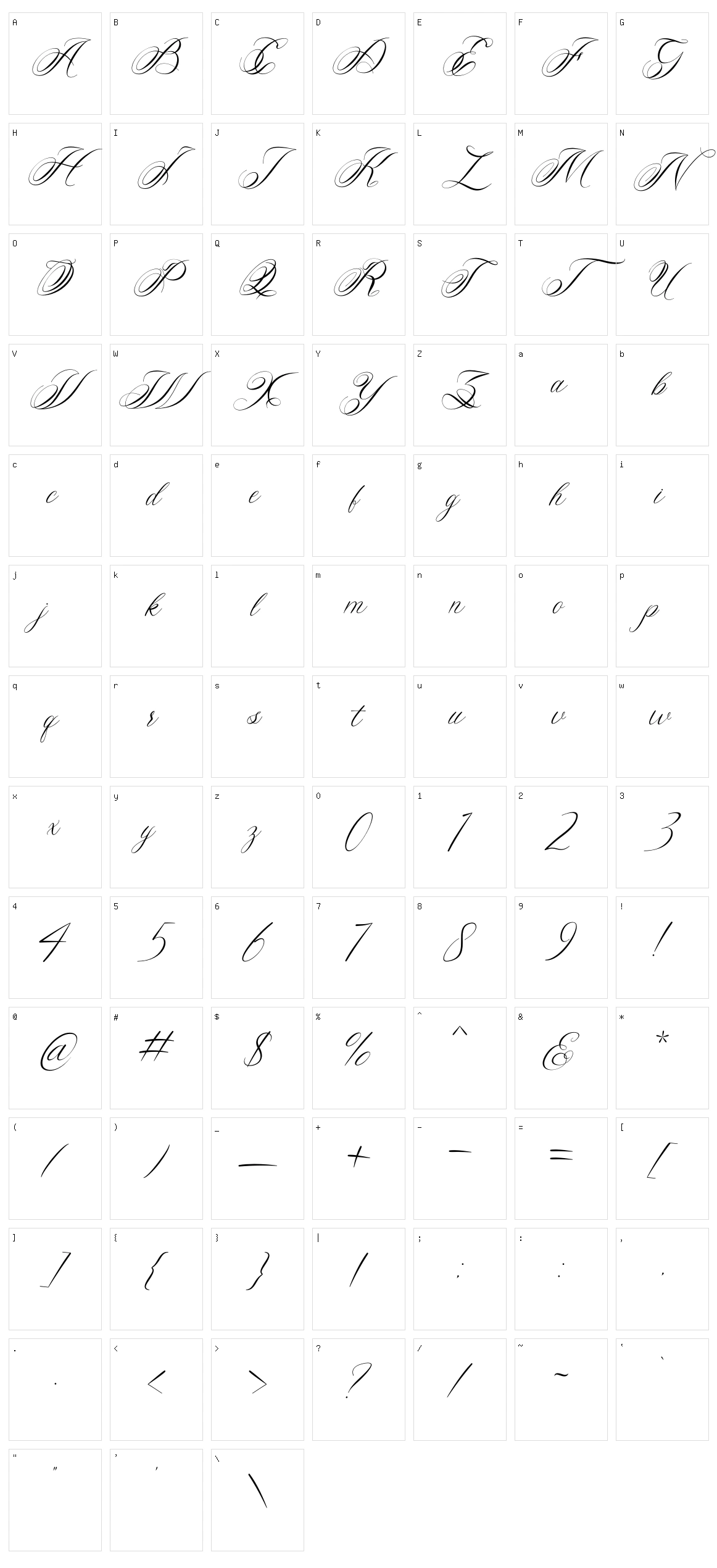
The free font Melody of Love is carefully designed by Winarko, showcasing a thoughtful balance of creativity and usability and falls under the Script font style. When you download the ZIP file, it contains only 91.93 KB of font files, making it lightweight and quick to download. Please review the license details below to understand permitted usage and distribution rights. If license information is not available, we recommend using this font for personal projects only or contacting the author directly for commercial usage permissions.